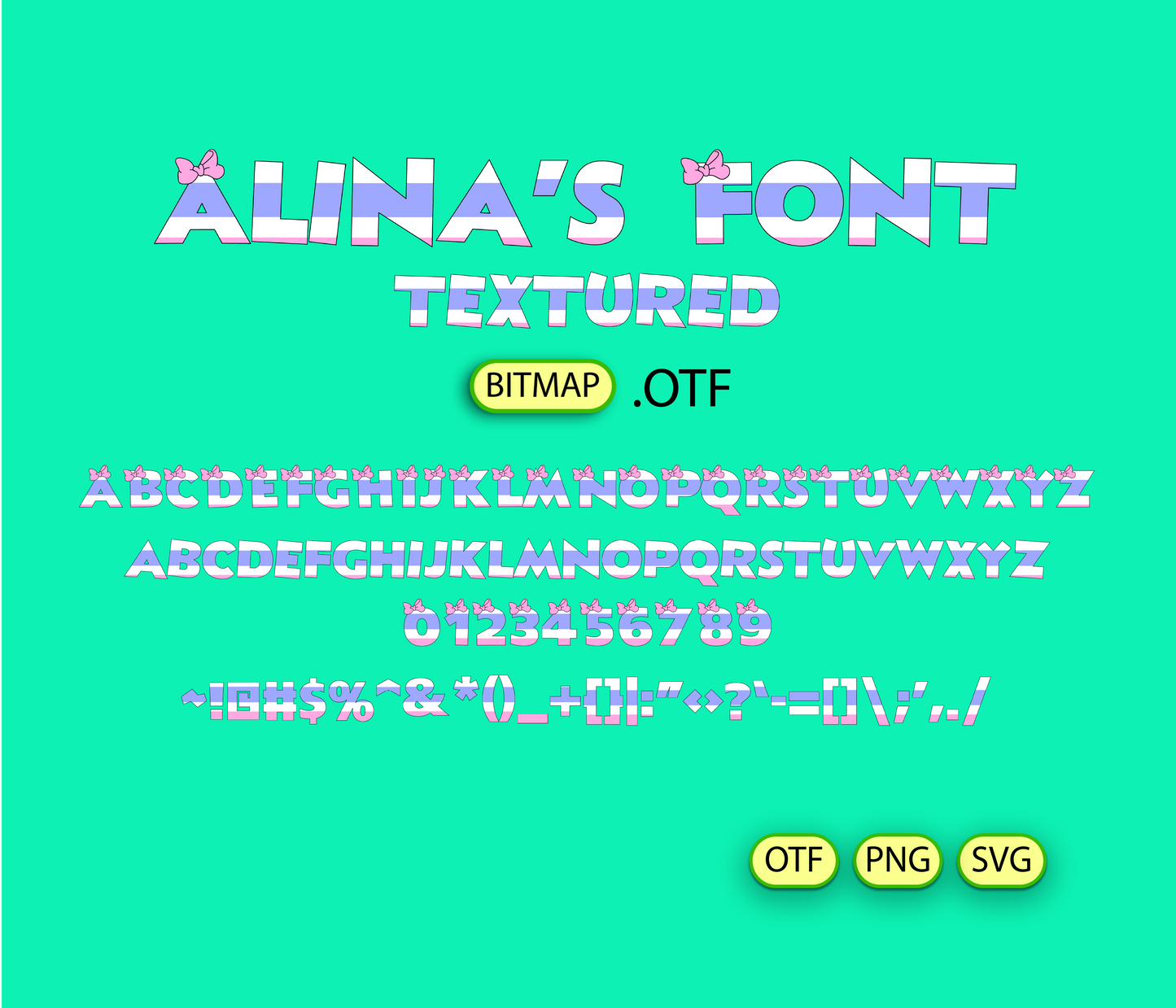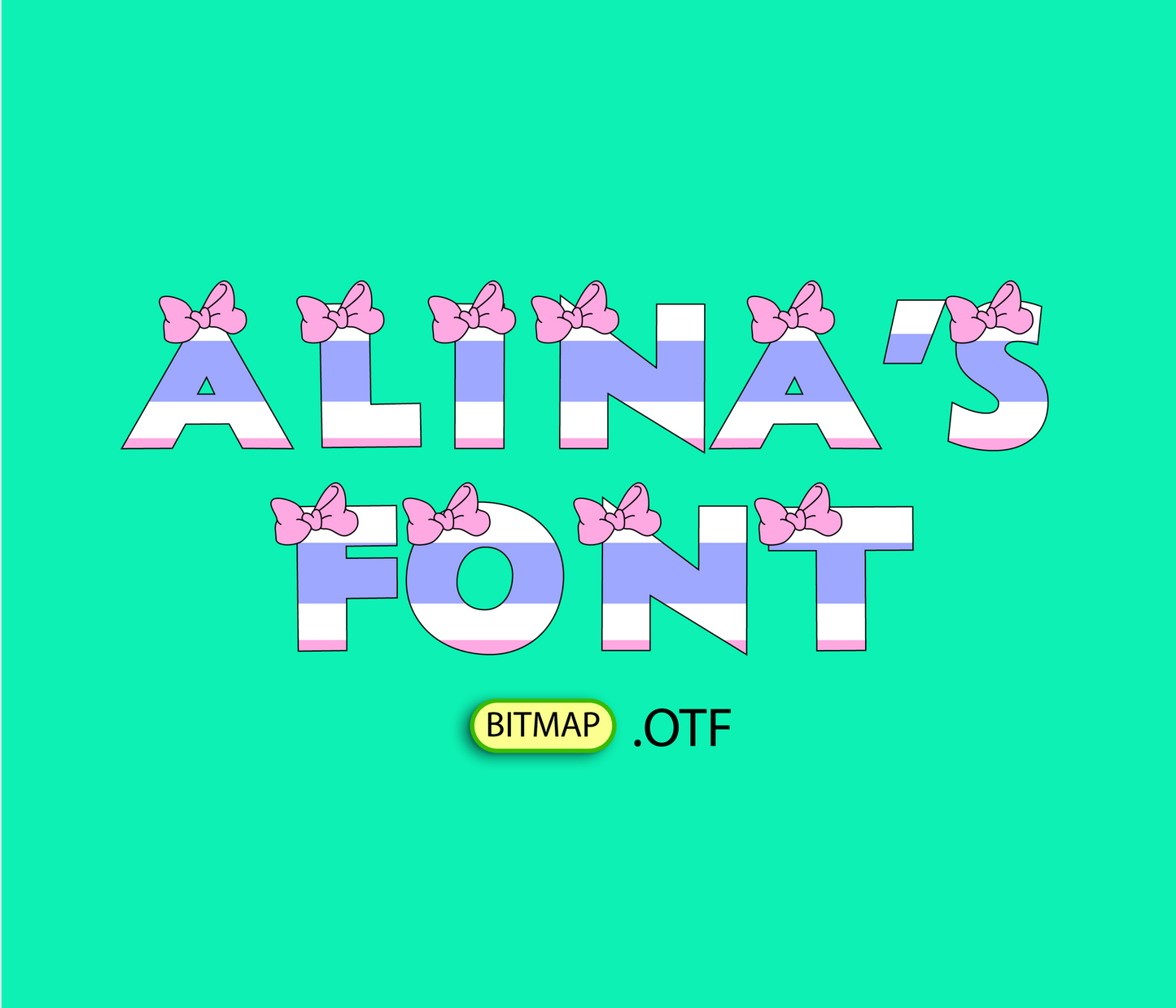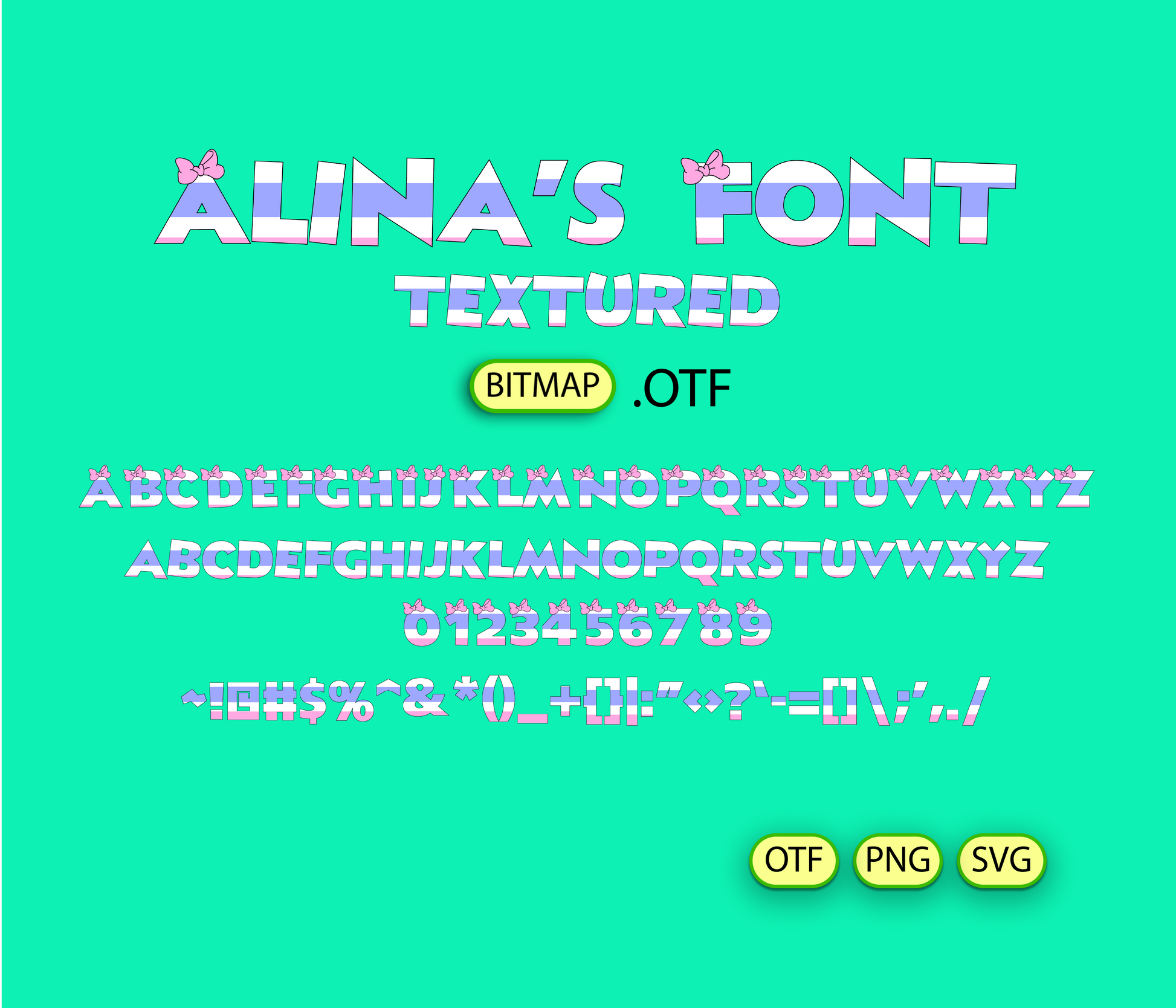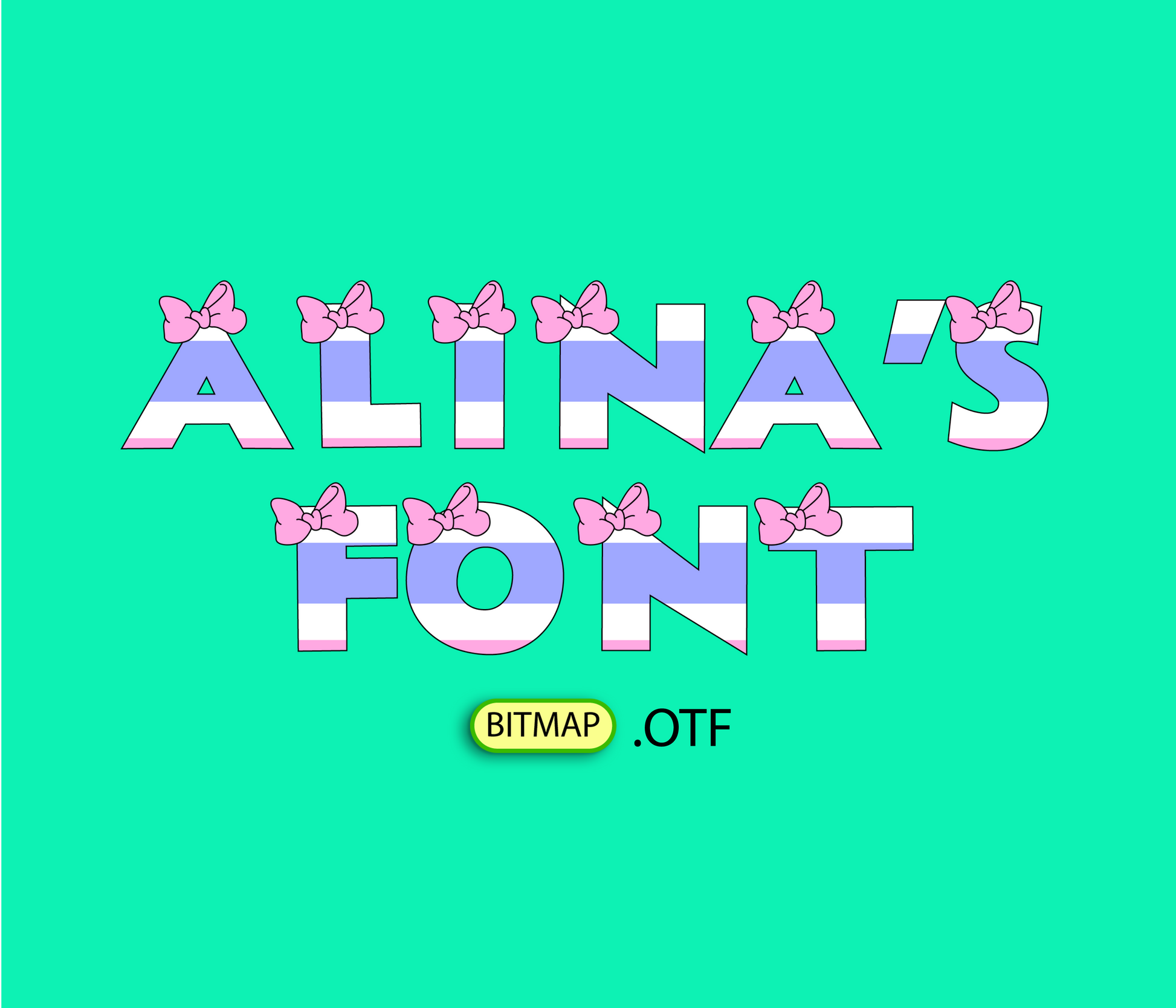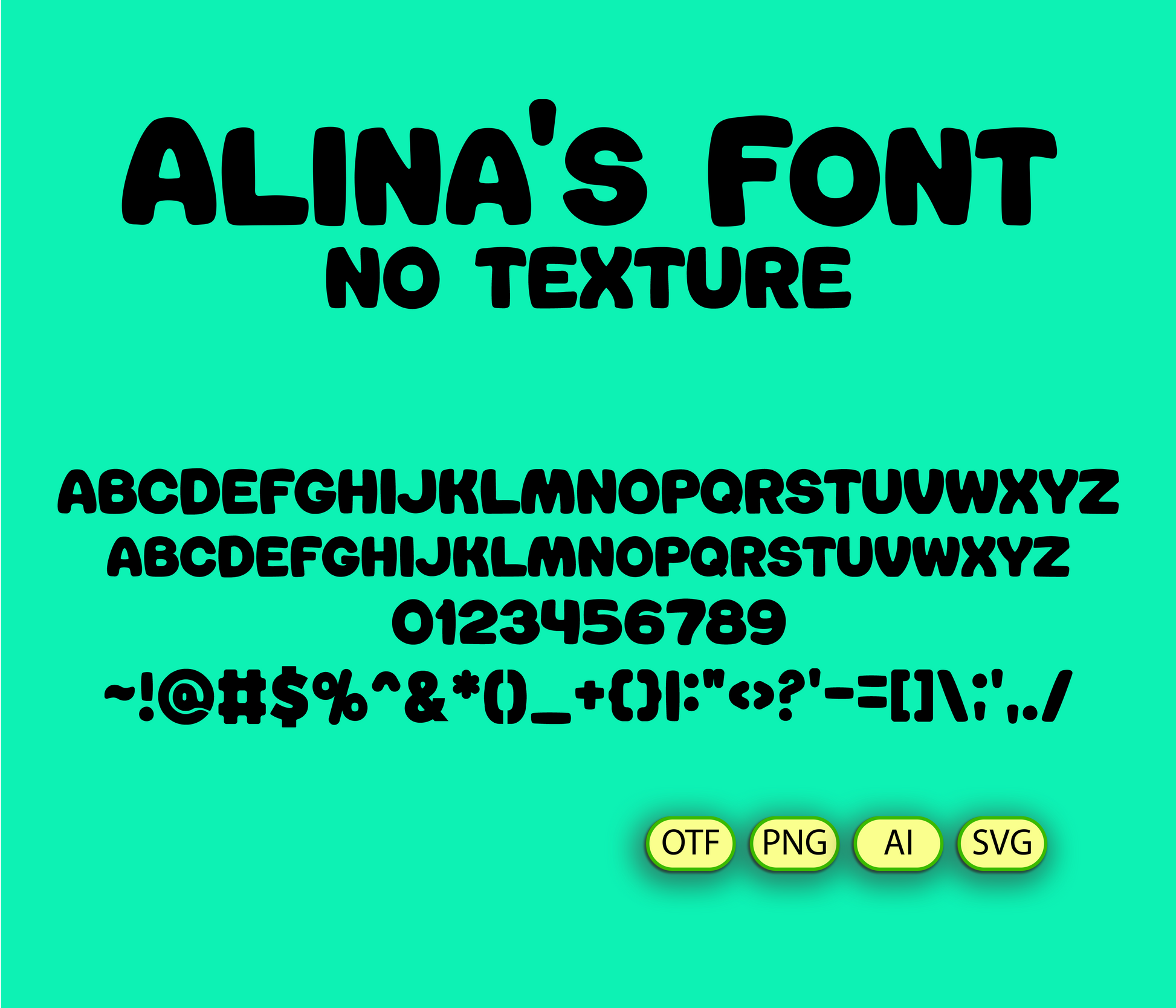
Daisy Feather Whimsical Pattern Font
Daisy Feather Font Whimsical Character Style
Step into the enchanting world of animated adventures with our Daisy Feather font, capturing the essence of playful charm and delightful feathered character expression. Perfect for children's book designers, animated-themed event planners, cartoon enthusiasts, and whimsical brand creators, this font brings the sweet, cheerful energy of beloved animated waterfowl characters to your projects. Create delightful party materials, character-inspired merchandise, or joyful digital content with the optimistic spirit of classic animation and timeless charm.
Our Daisy Feather font features playful, rounded shapes and cheerful characters reflecting the adorable yet vibrant aesthetic of animated waterfowl storytelling and character celebration. Ideal for:
- Children's Events: Create eye-catching birthday party invitations, character-themed decorations, and playful activity materials for animated story gatherings
- Character Design: Perfect for entertainment center branding, cartoon festival promotions, and event signage that celebrates animated creativity and joy
- Digital Media: Enhance animation blogs, character websites, and playful social media with headers that express cheerful optimism and animated delight
- Entertainment Content: Add authentic character to children's animation games, storytelling materials, and promotional content for character-themed events
- Personal Projects: Bring animated charm to scrapbook pages, character crafts, and artistic endeavors inspired by the aesthetics of classic cartoon storytelling